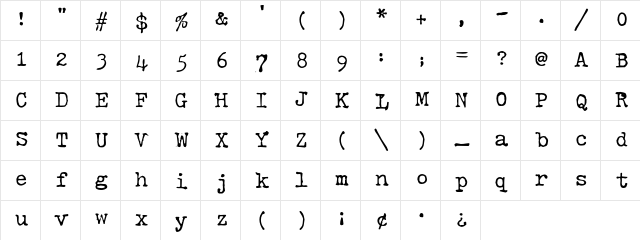
Typewriter Rustic RNH Regular
Design Context for Typewriter Rustic RNH Typeface
Typewriter Rustic RNH uses fixed-width spacing throughout, giving it the structured, systematic character associated with coding environments and technical documentation.
Well-suited to data-driven dashboards, coding tutorials, and any design that wants to reference the world of programming.
Pro Tip: Use Typewriter Rustic RNH with slightly increased line-height for extended reading — fixed-width spacing can feel dense in longer passages without extra breathing room.